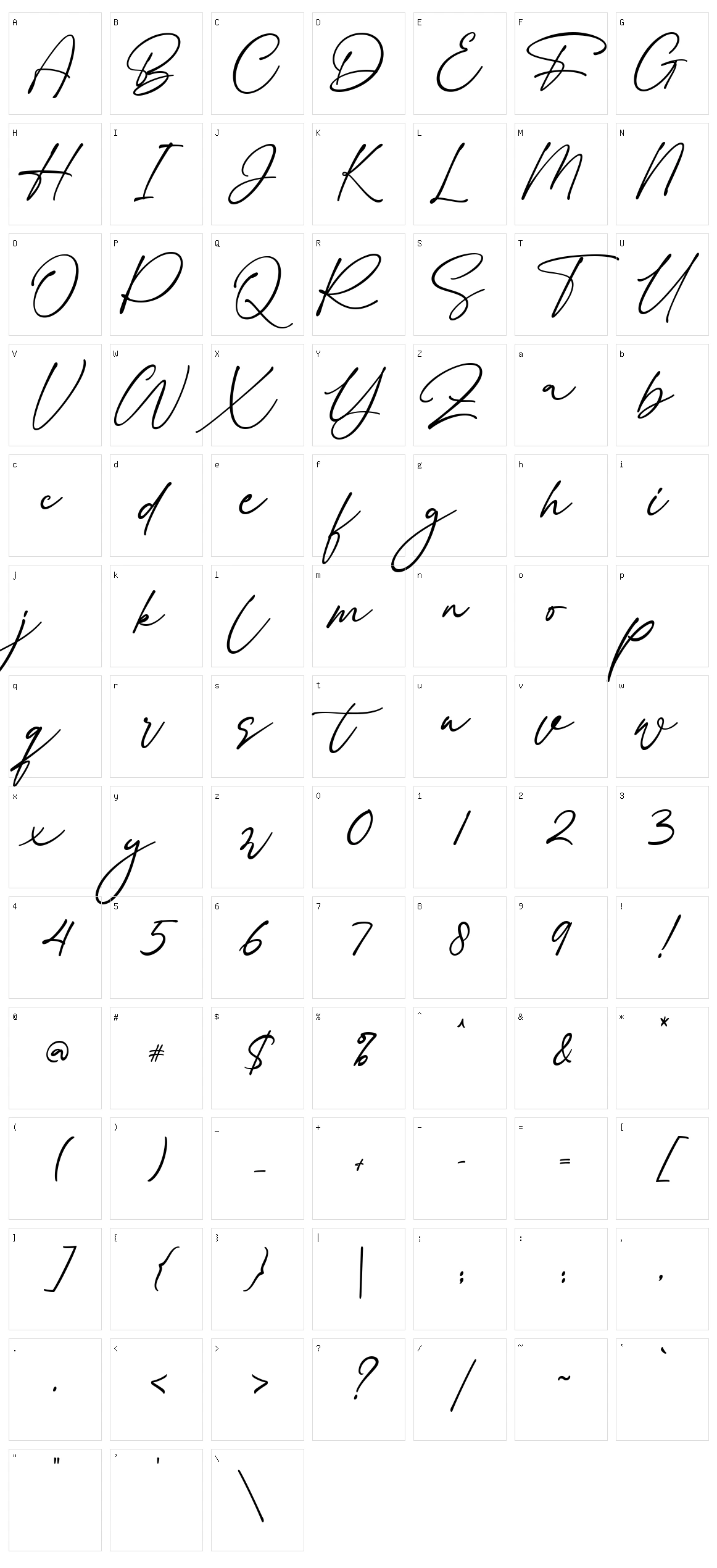
The free font Cathyperry is carefully designed by Mayofont, showcasing a thoughtful balance of creativity and usability and falls under the Script font style. When you download the ZIP file, it contains only 34.49 KB of font files, making it lightweight and quick to download. Please review the license details below to understand permitted usage and distribution rights. If license information is not available, we recommend using this font for personal projects only or contacting the author directly for commercial usage permissions.